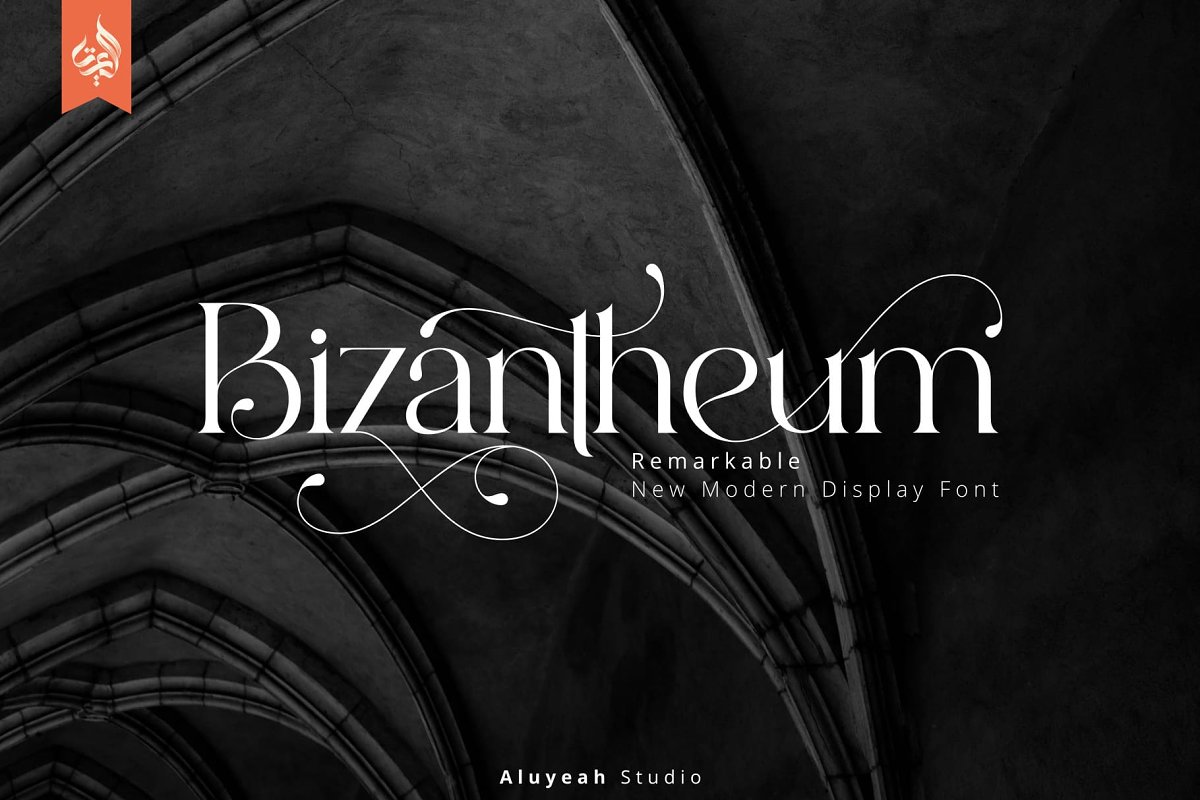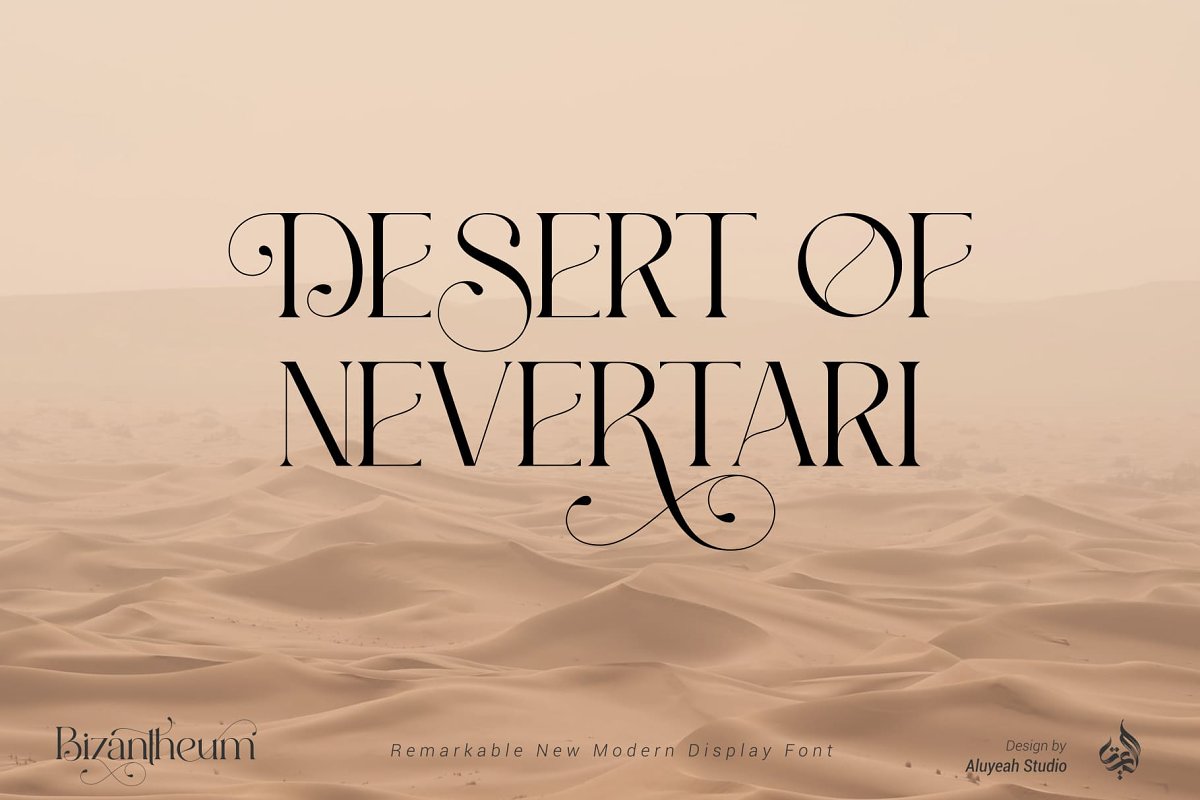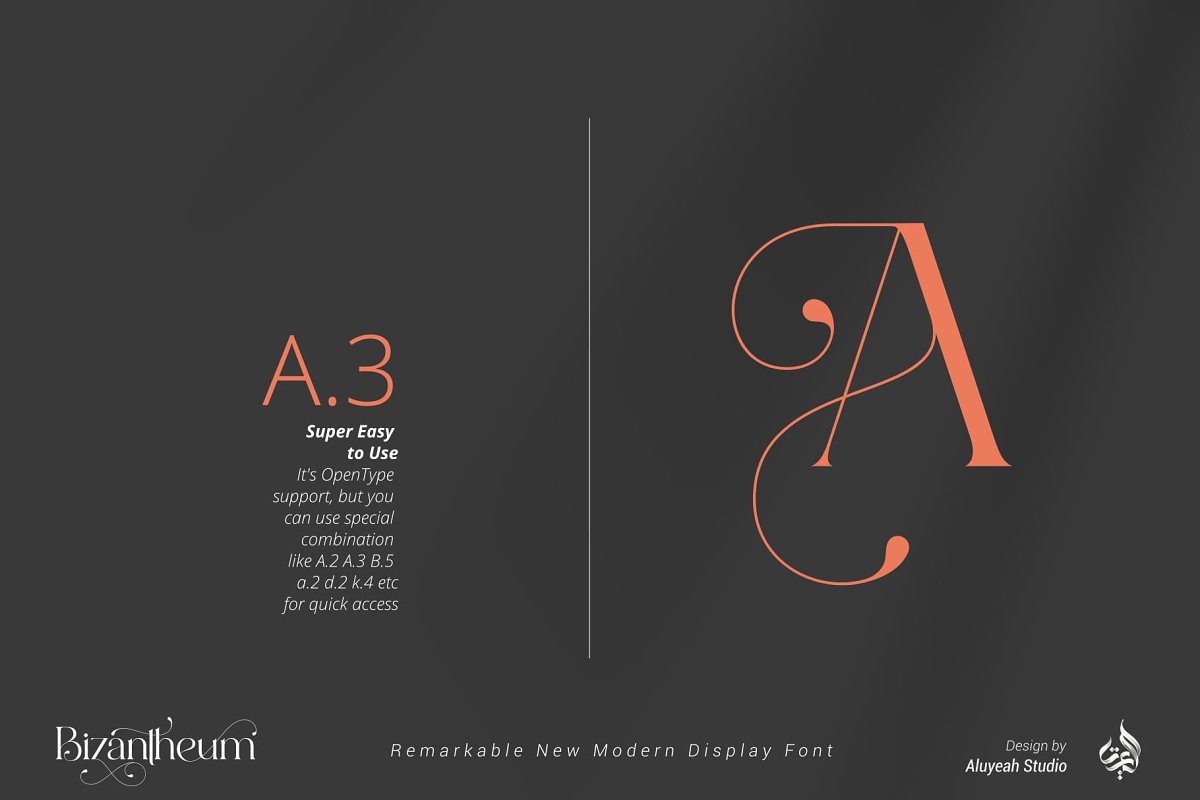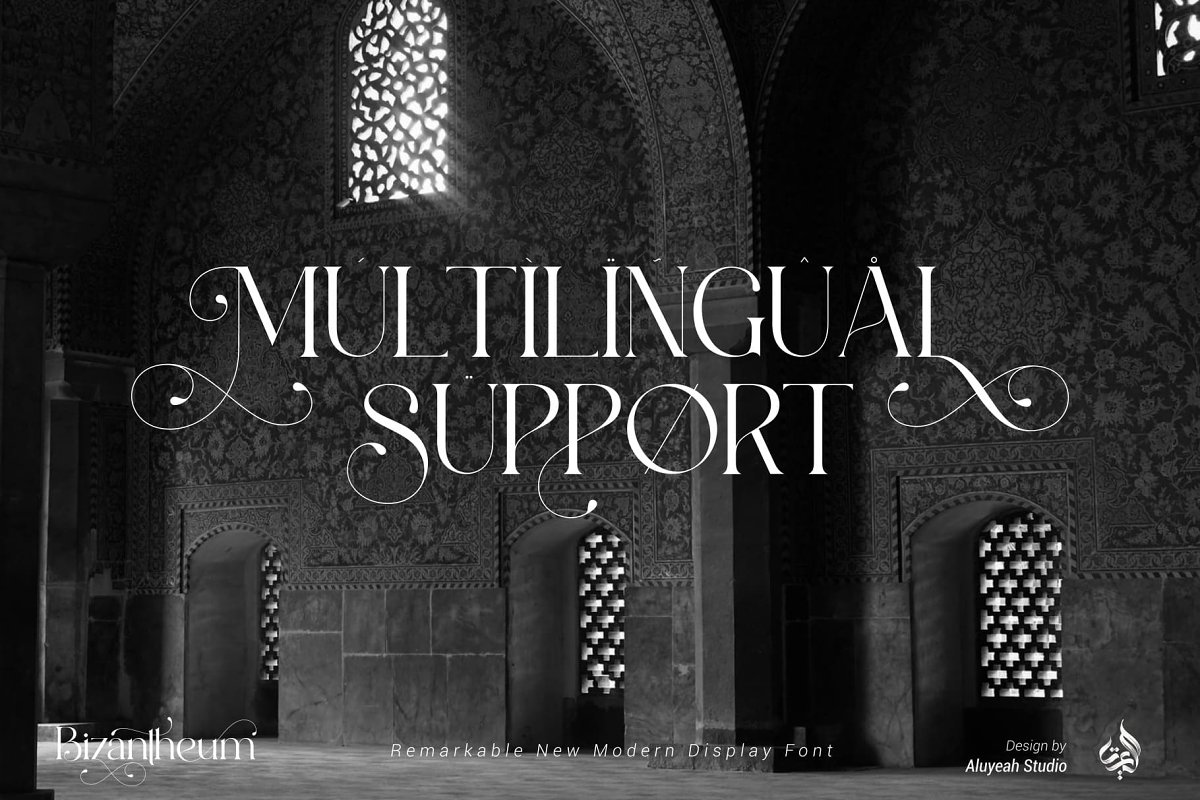
About the Bizantheum
Bizantheum, remarkable new modern display font, Inspired by the majesty and mystique of the Byzantine era buildings, Coming with 130+ stunning and super easy to use alternates, Very suitable for magazine, headline, website, ads, product package and all type of design project you have, Features:OpenType supportMultilingual support (15 languages)PUA EncodedSuper Easy to Use alternates – It’s OpenType support but you can easly call alternates character using special combination like A